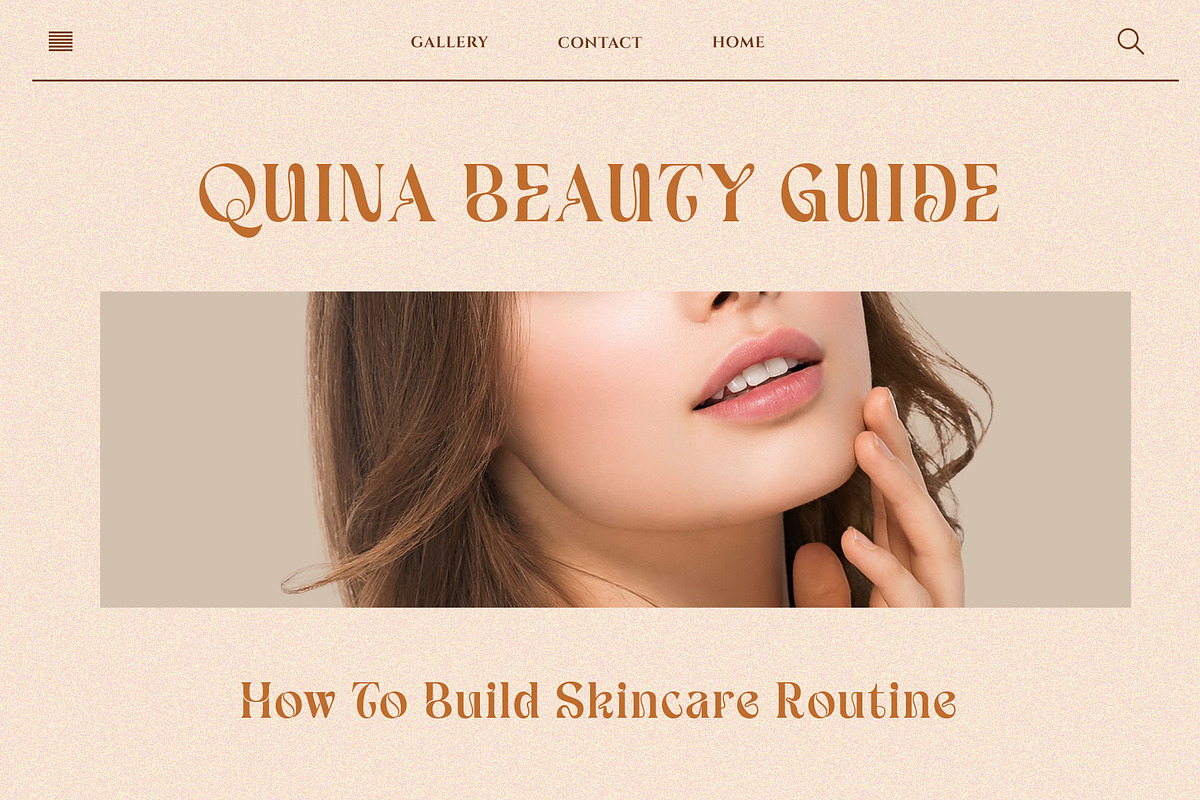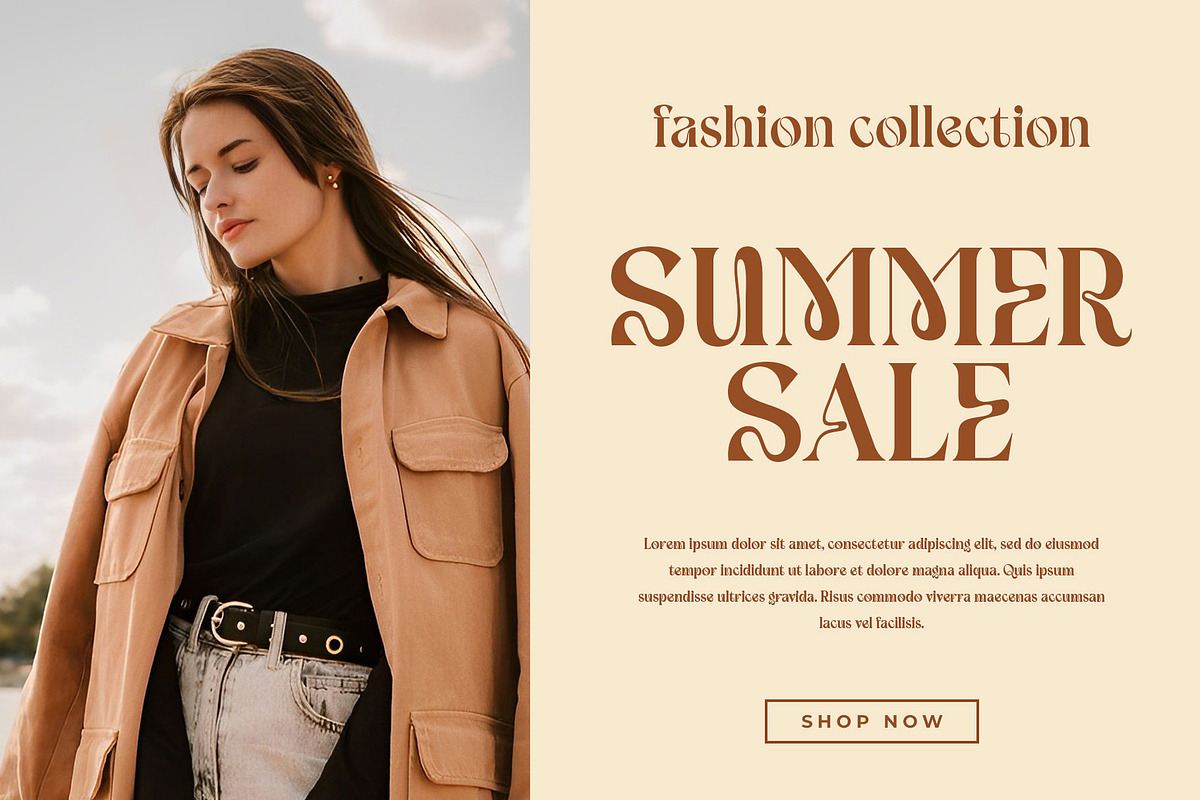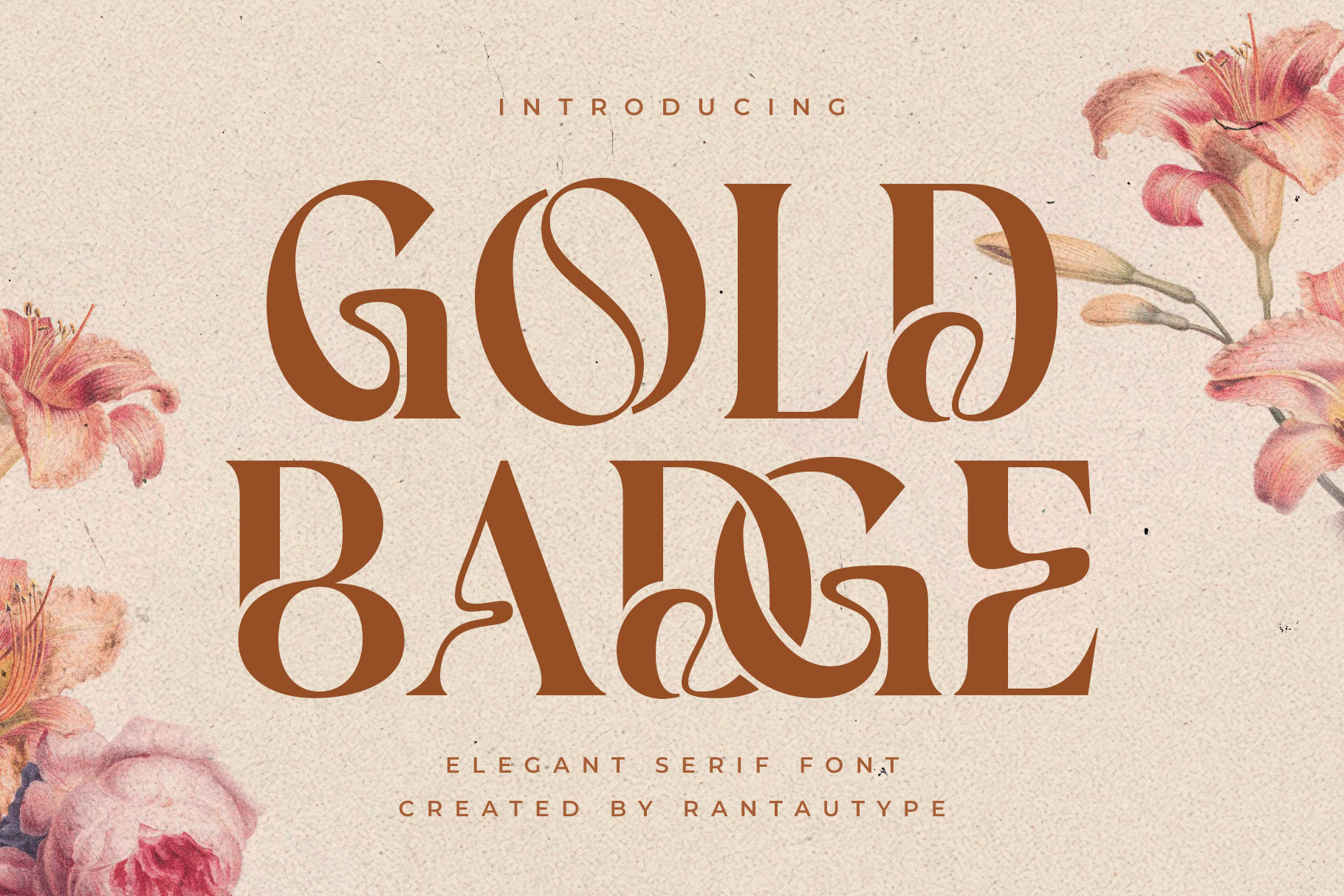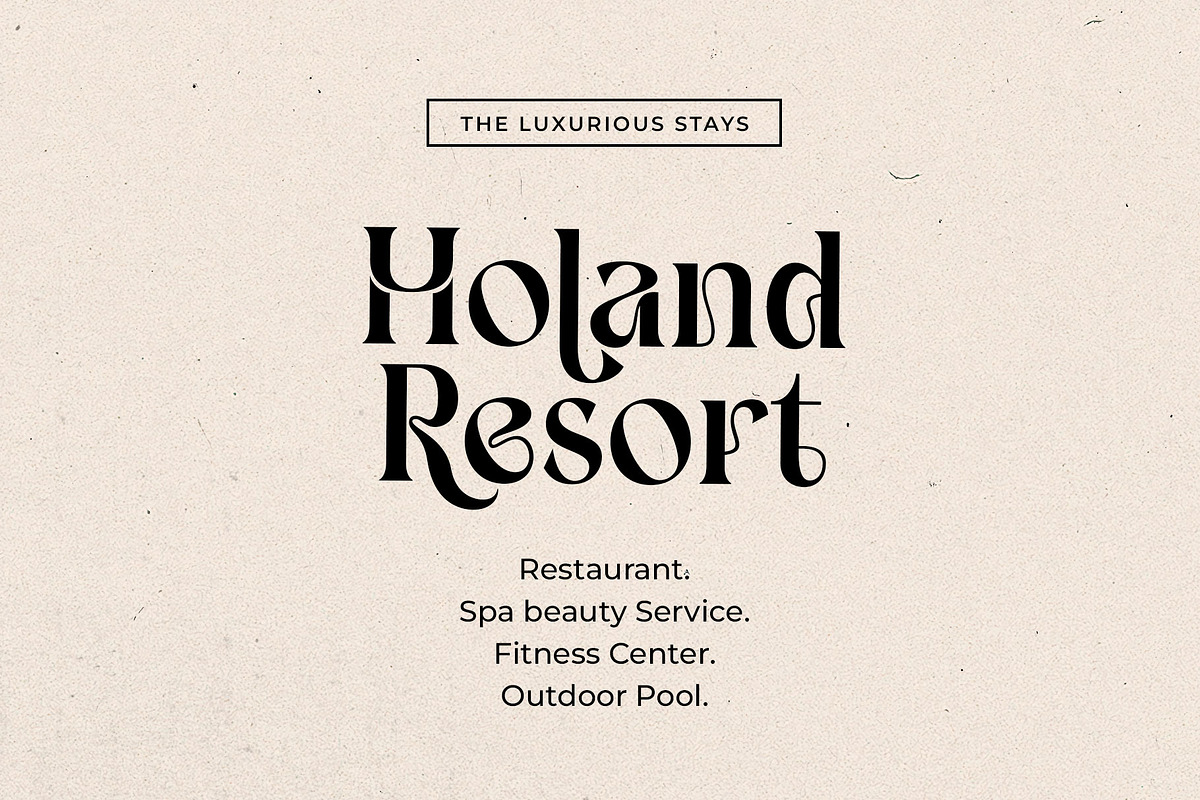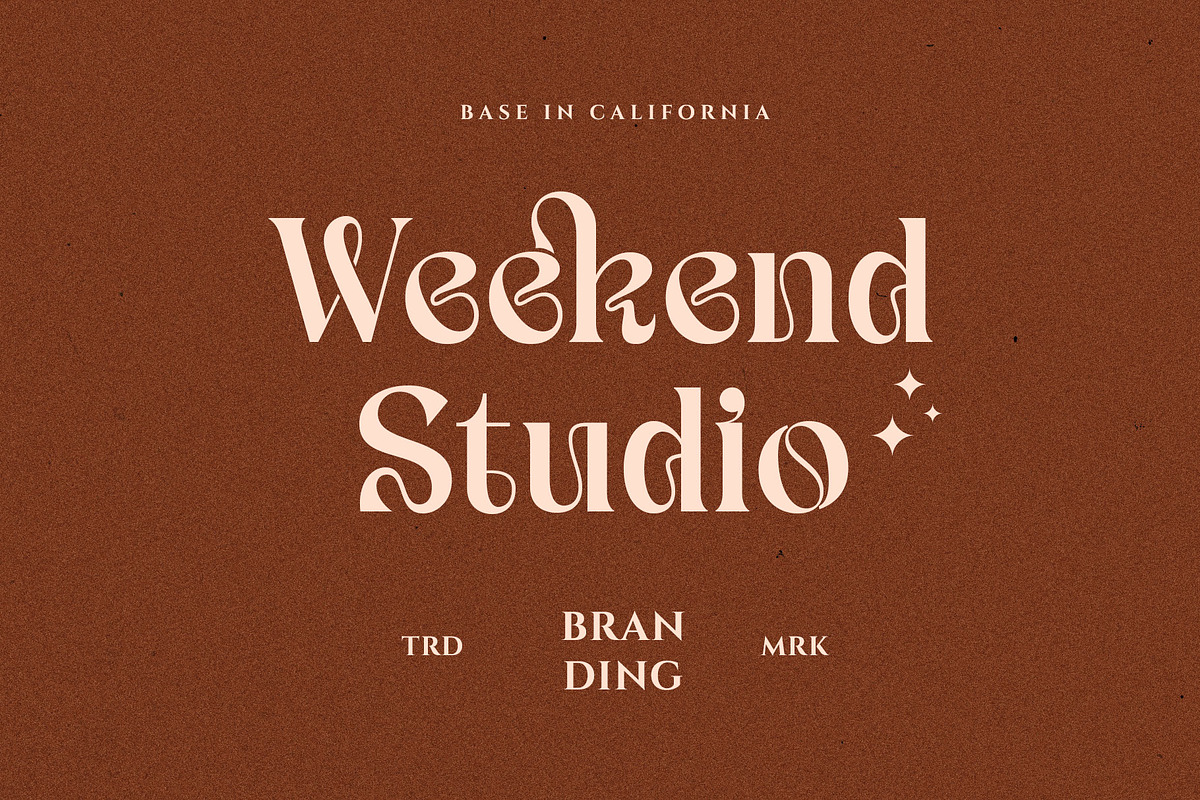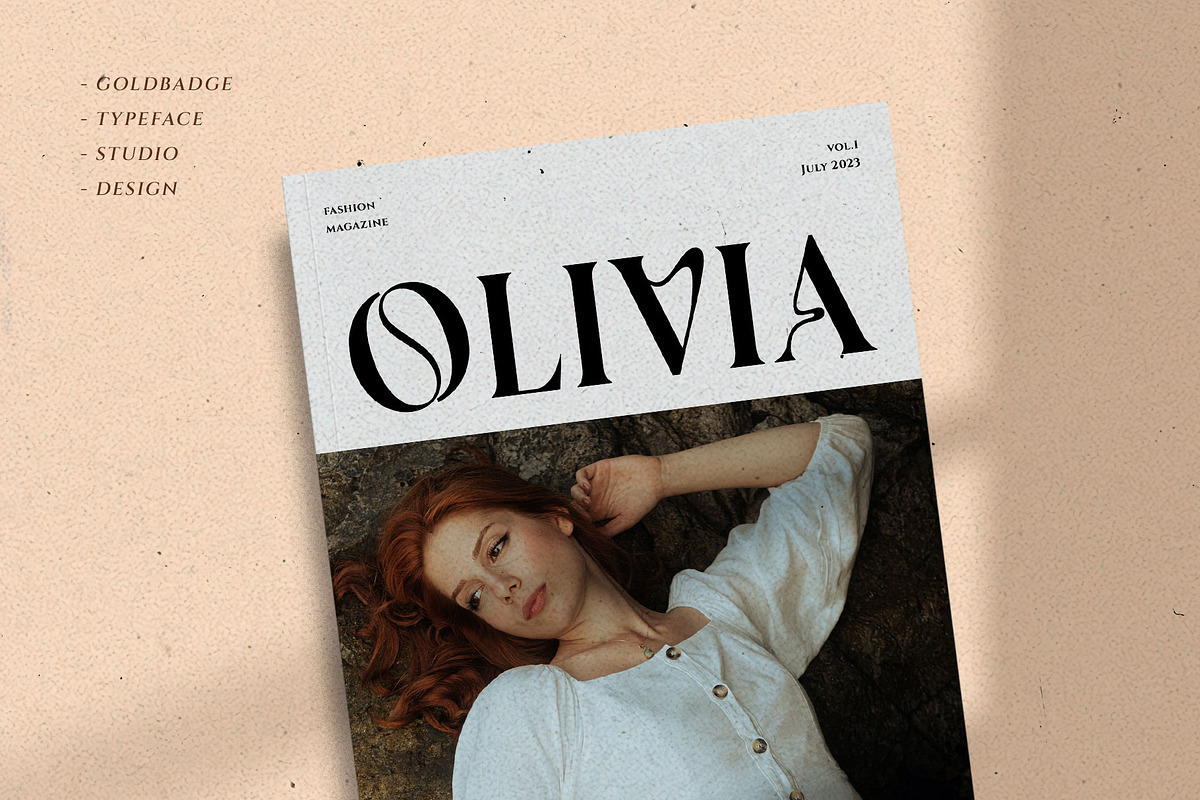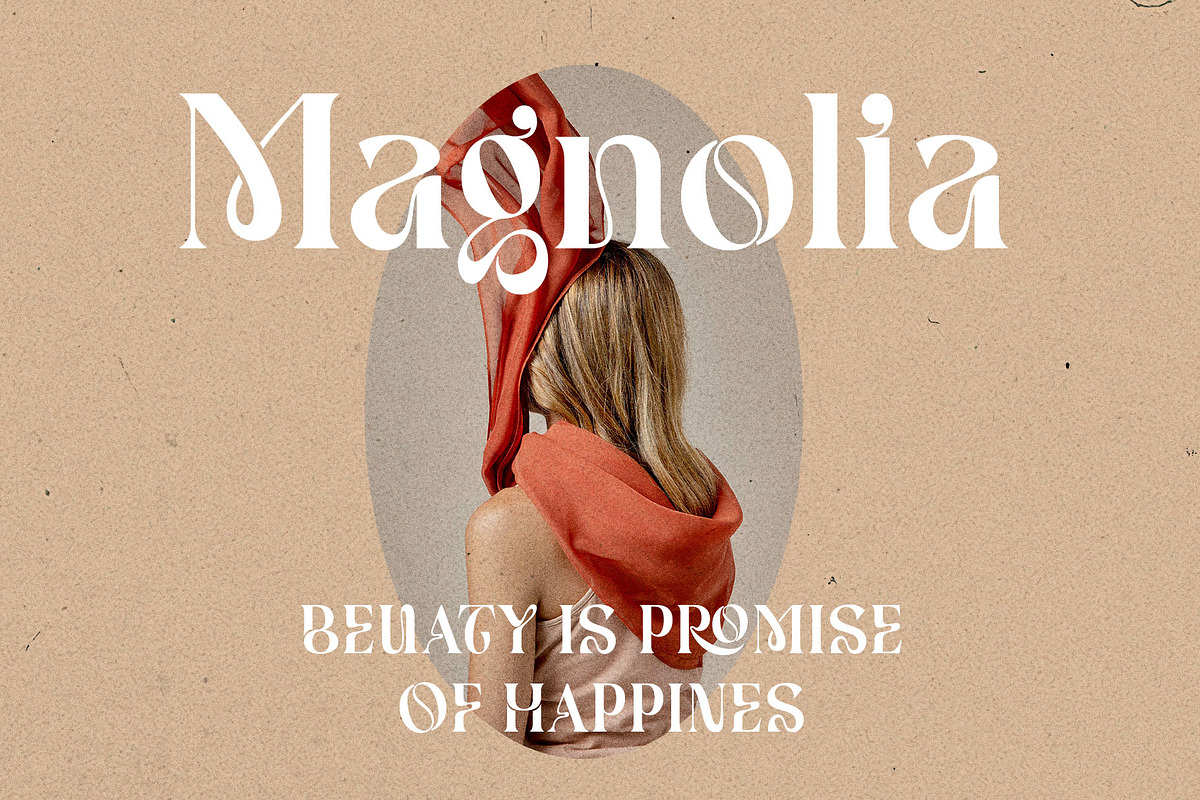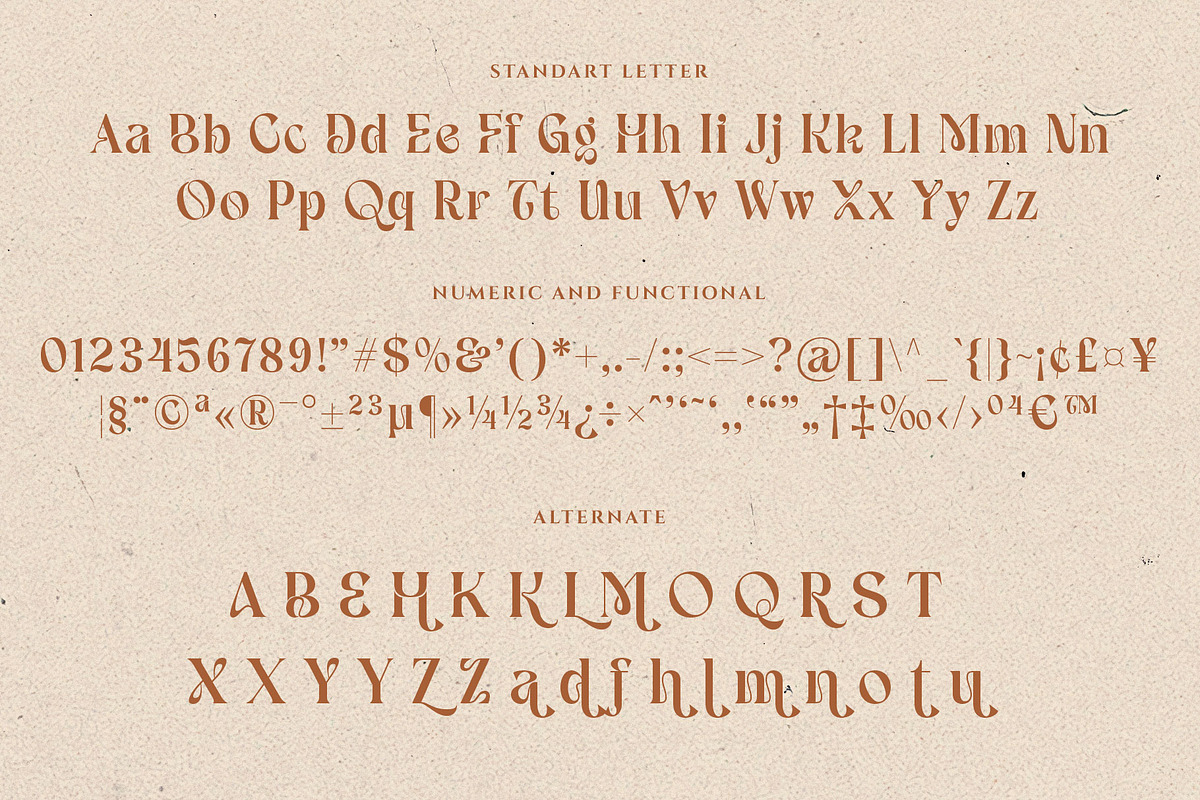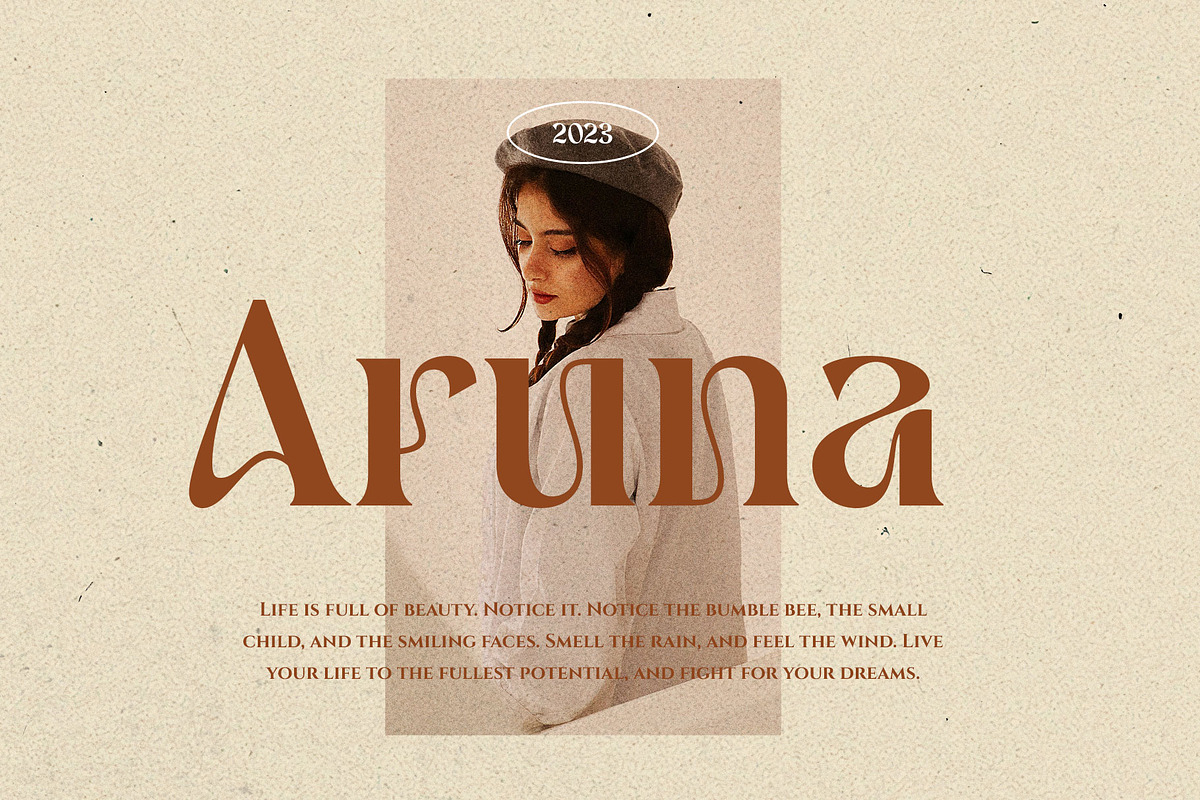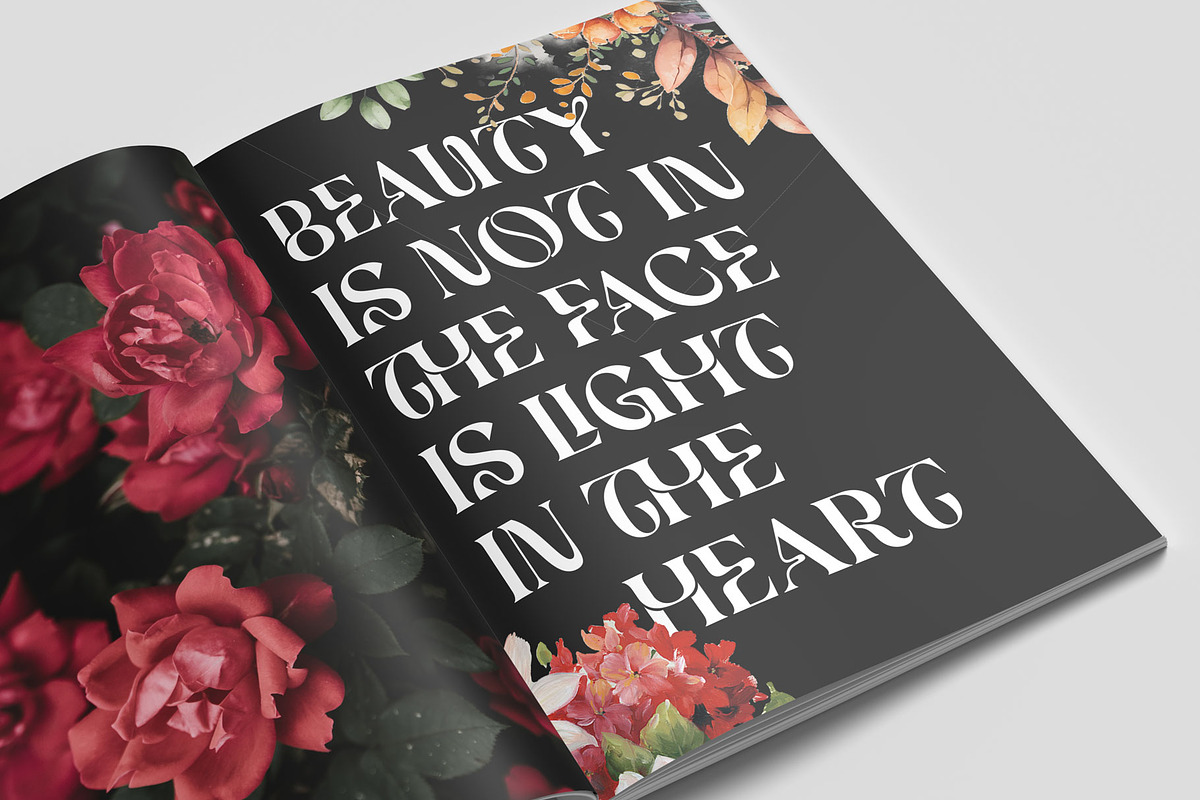
Gold Badge Unique Display Serif Font
Gold Badge is a modern font that bold curve make it look Unique, elegant, and versatile serif Font. Come with more alternate and ligature you can mix and max to create a more stunning display. GoldBadge come with multilinggual support.
Gold Badge separate is a beautiful choice for any creative endeavor, creating elegant, modern, chic, lifestyle design such as logos, title, cover, branding, display and magazine, and more. Now you have more choice Gold Badge to make stunning branding.
- Alternate and Ligature